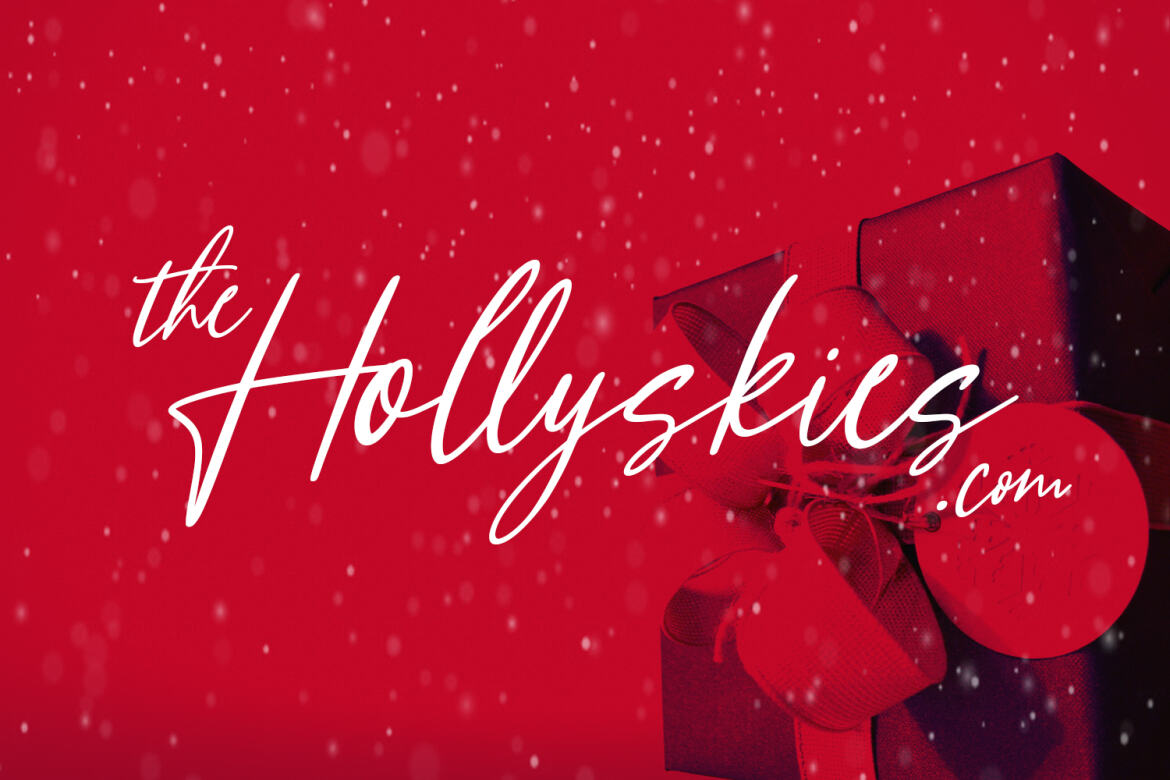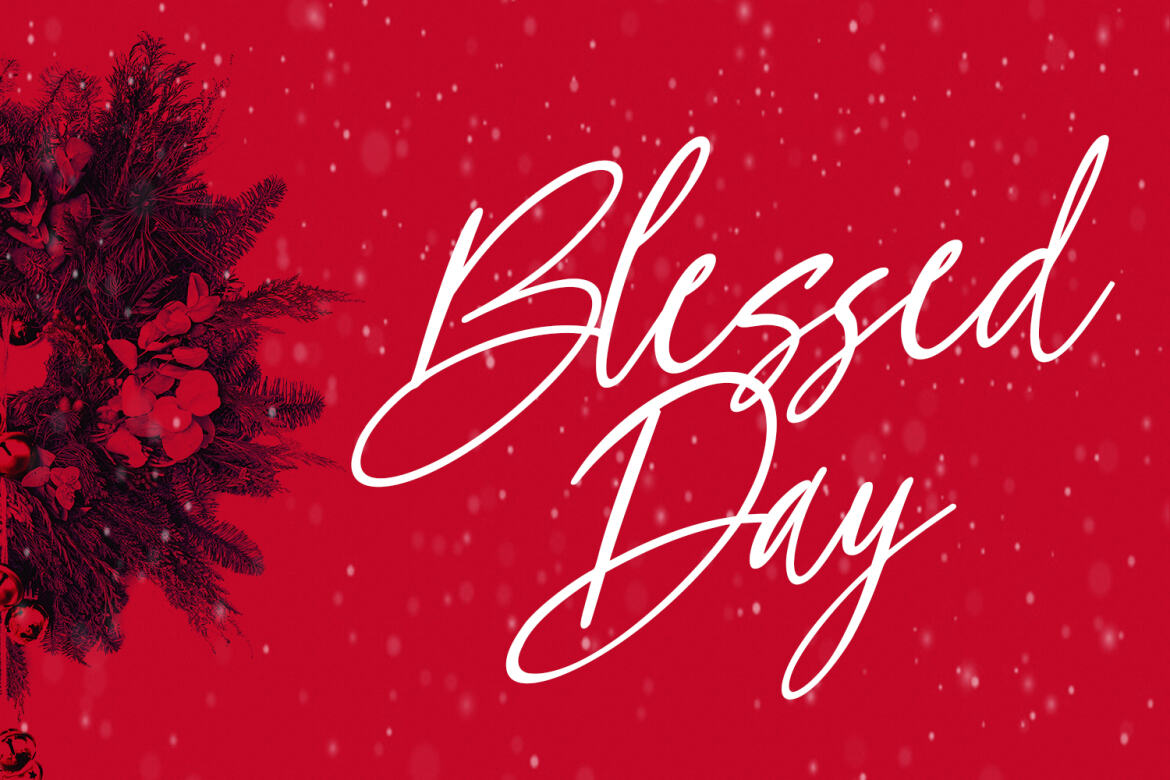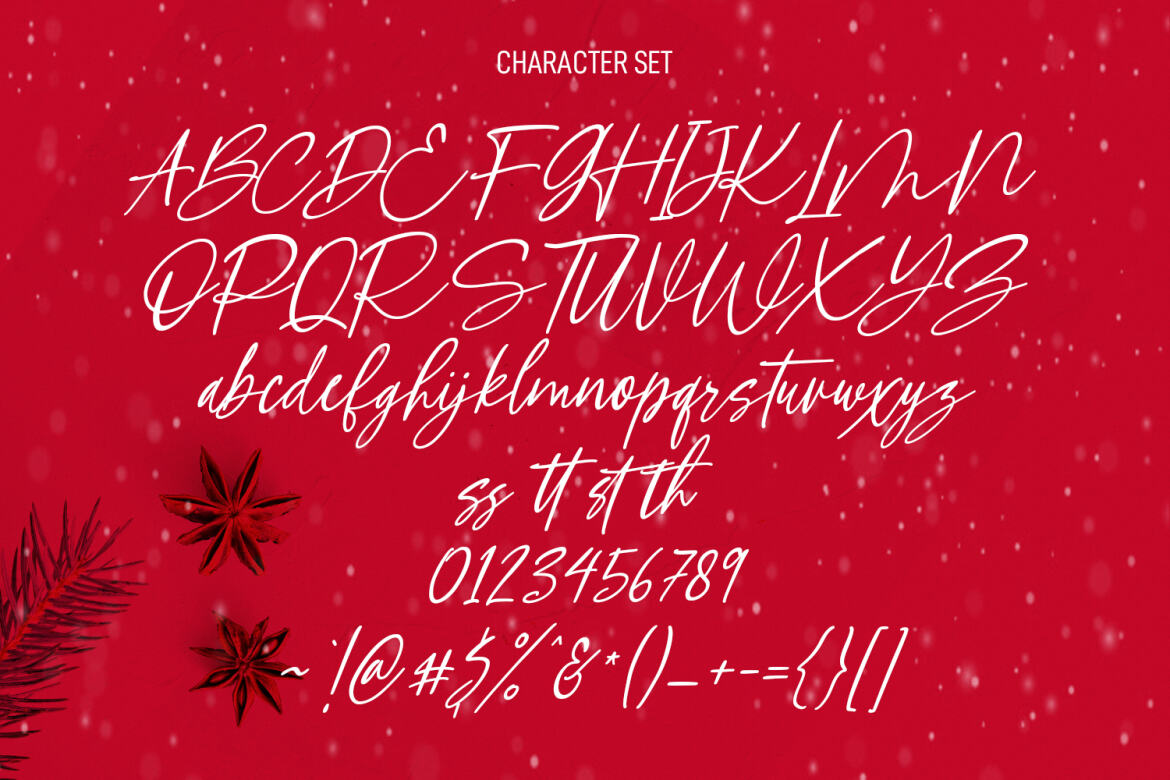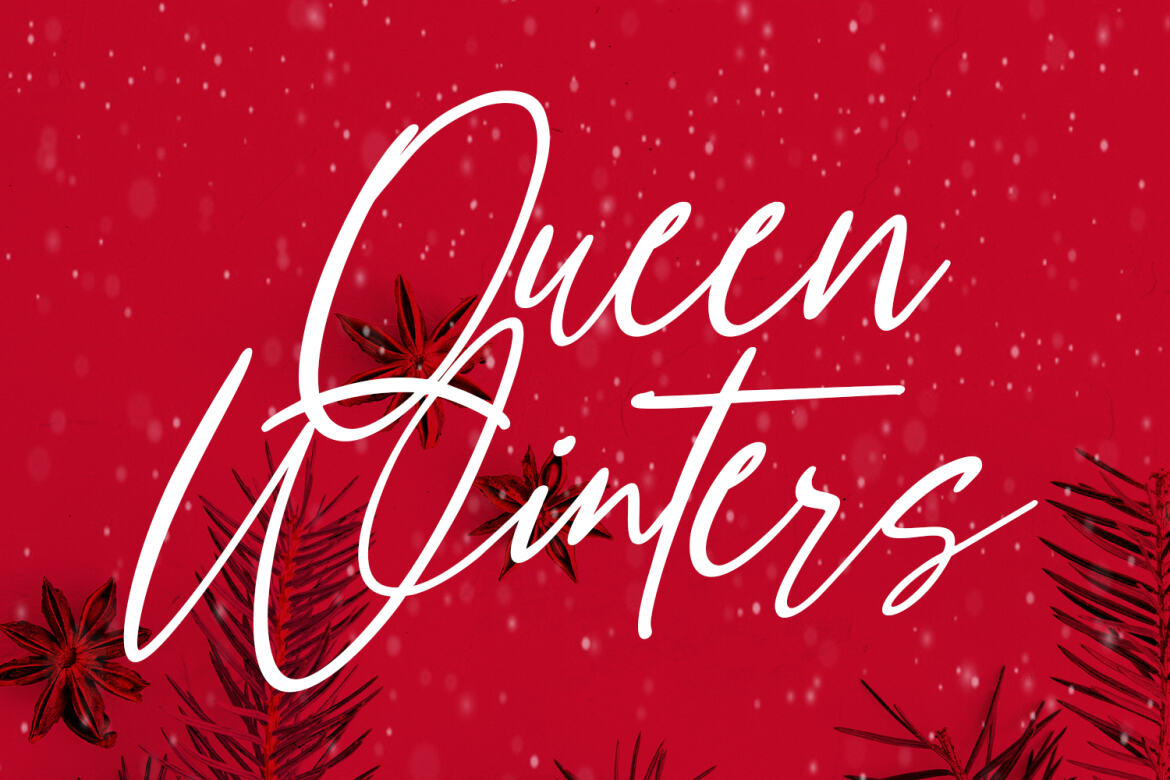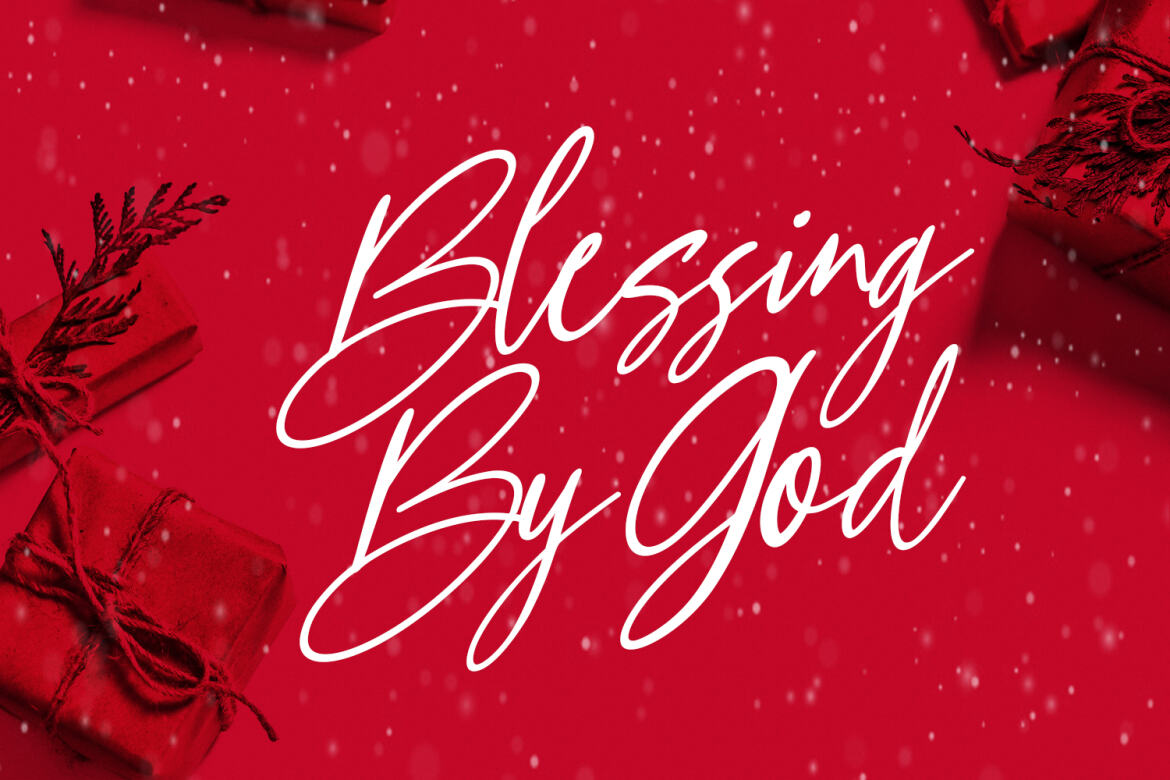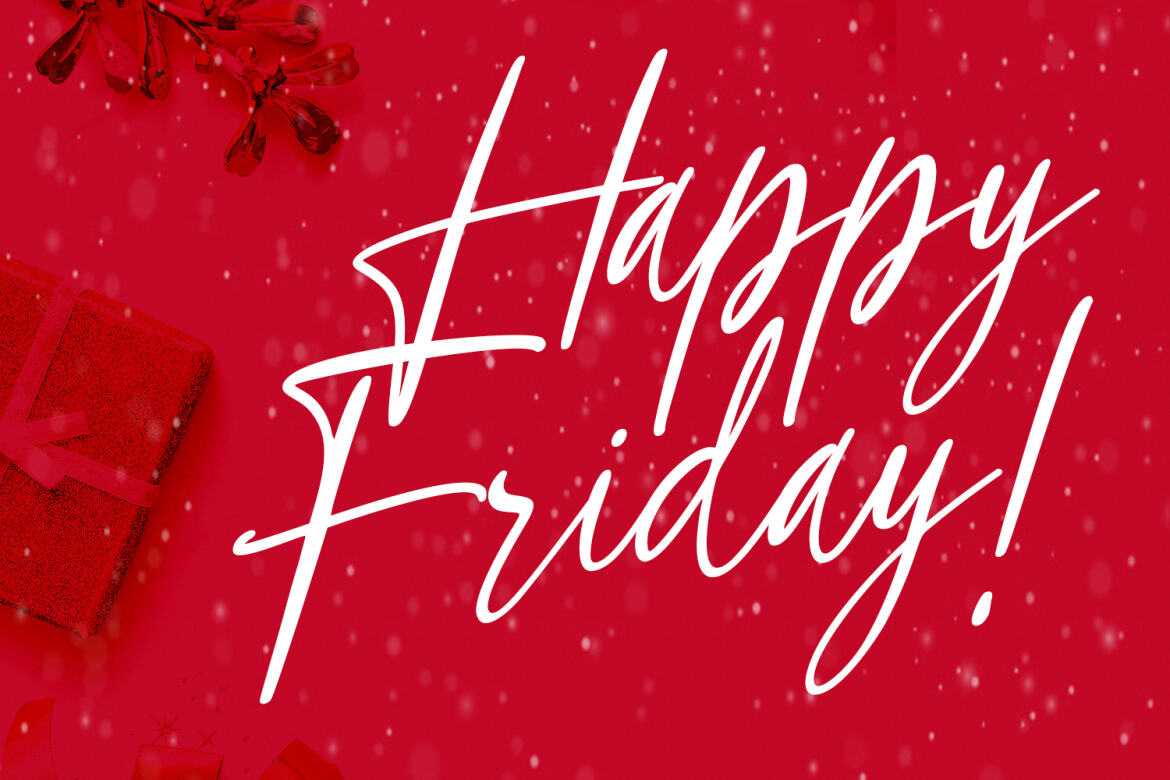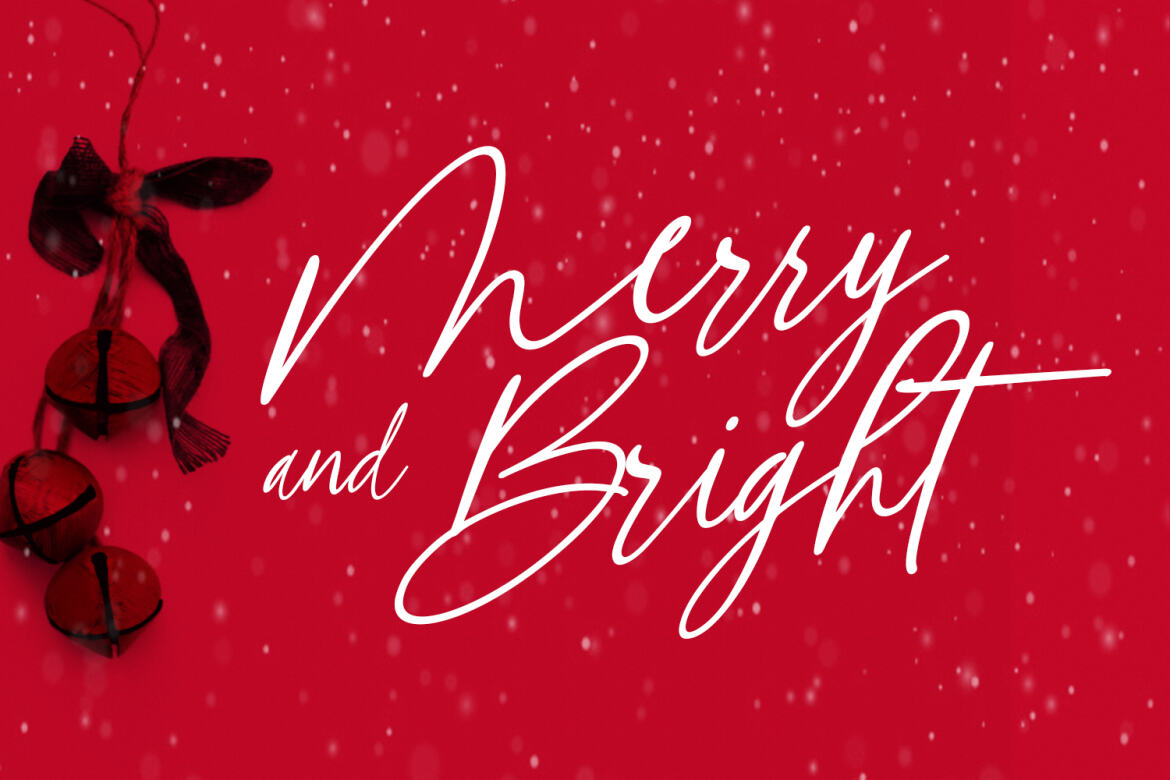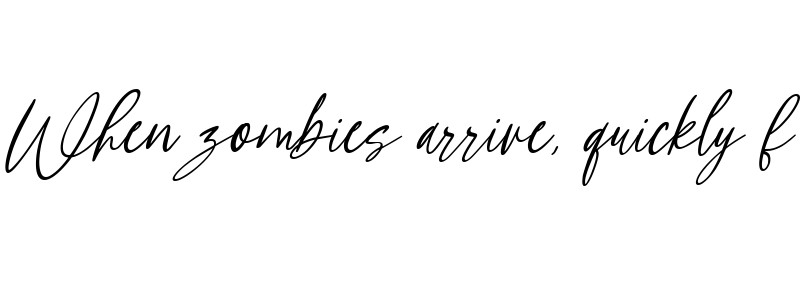
Another Christmas
Another Christmas is an annual Christmas font with slanted style clean mono-line stroke, fun character with a bit of ligatures. To give you an extra creative work. Another Christmas font support multilingual more than 100+ language. This font is good for logo design, Social media, Movie Titles, Books Titles, a short text even a long text letter and good for your secondary text font with sans or serif. Make a stunning work with Another Christmas font.